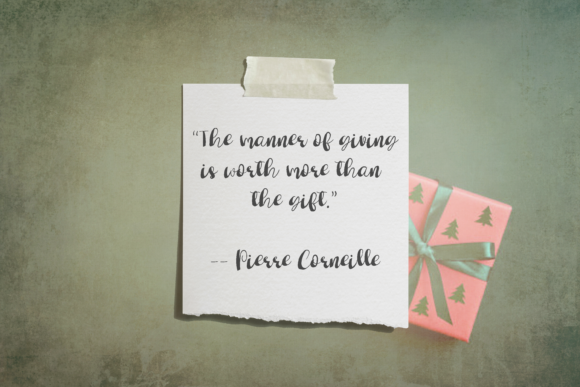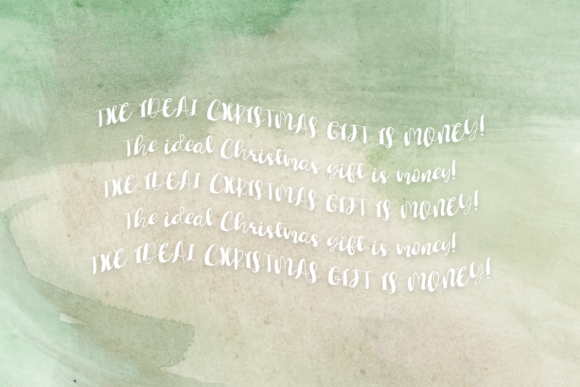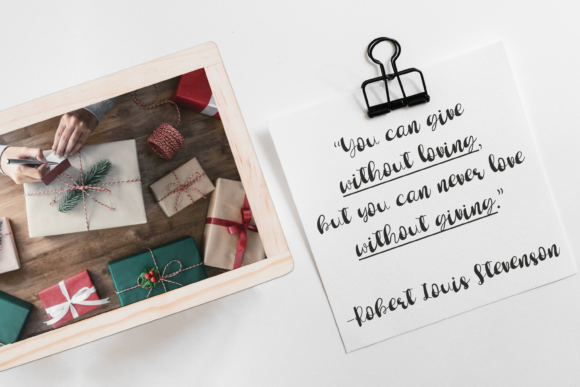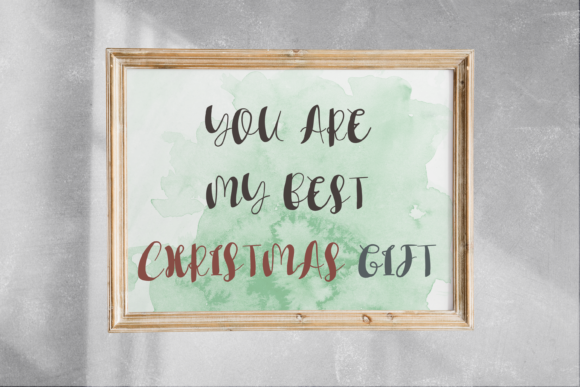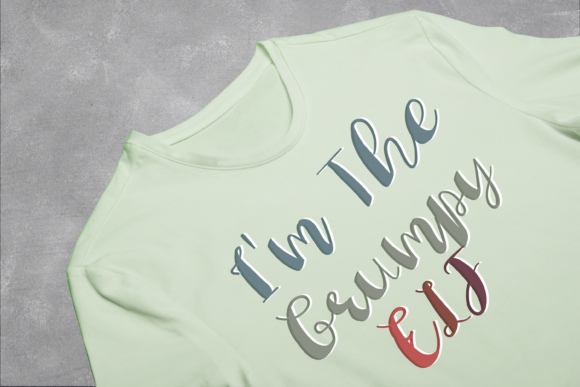
Introducing Christmas Gift Font: The Perfect Addition to Your Design Projects
Are you looking for a font that can add a touch of whimsy and charm to your design projects? Look no further than the Christmas Gift font! This cute and quirky handwritten font is sure to inspire your creativity and take your designs to the next level. With its high-contrast vibe and round letters, Christmas Gift is the perfect choice for designers and crafters who want to create standout designs.
The Characteristics of Christmas Gift Font
Christmas Gift font is a unique and eye-catching font that boasts several distinctive characteristics. Its high-contrast vibe gives it a sense of elegance and sophistication, while its round letters add a playful and whimsical touch. The font’s handwritten style also gives it a personal and organic feel, making it perfect for designs that require a human touch.
Why Choose Christmas Gift Font?
So, why should you choose Christmas Gift font for your design projects? Here are just a few reasons:
- Unique and eye-catching: Christmas Gift font is unlike any other font out there. Its distinctive style and high-contrast vibe make it sure to grab attention and leave a lasting impression.
- Versatile: This font can be used for a wide range of design projects, from holiday cards and invitations to branding and packaging.
- Easy to read: Despite its quirky style, Christmas Gift font is easy to read and understand, making it perfect for designs that require a clear and concise message.
- Customizable: With Christmas Gift font, you can easily customize your designs to fit your brand’s style and aesthetic.
How to Use Christmas Gift Font in Your Design Projects
Using Christmas Gift font in your design projects is easy! Here are a few tips to get you started:
- Pair it with other fonts: Christmas Gift font pairs well with a variety of other fonts, including serif and sans-serif fonts. Experiment with different combinations to find the perfect look for your design.
- Use it for headings and titles: Christmas Gift font is perfect for headings and titles, where its high-contrast vibe and round letters can really shine.
- Add some color: Christmas Gift font looks great in a variety of colors, from bright and bold to soft and pastel. Experiment with different colors to find the perfect look for your design.
Design Ideas to Get You Started
Still looking for inspiration? Here are a few design ideas to get you started:
- Holiday cards and invitations: Use Christmas Gift font to create festive and fun holiday cards and invitations.
- Branding and packaging: Add a touch of whimsy and charm to your brand’s packaging and branding with Christmas Gift font.
- Social media graphics: Use Christmas Gift font to create eye-catching social media graphics that are sure to grab attention.
- Blog and website headers: Add a touch of personality to your blog or website with Christmas Gift font.
In conclusion, Christmas Gift font is a unique and eye-catching font that is sure to add a touch of whimsy and charm to your design projects. With its high-contrast vibe and round letters, it’s the perfect choice for designers and crafters who want to create standout designs. Whether you’re creating holiday cards and invitations, branding and packaging, or social media graphics, Christmas Gift font is the perfect addition to your design toolkit.
Get Creative with Christmas Gift Font!